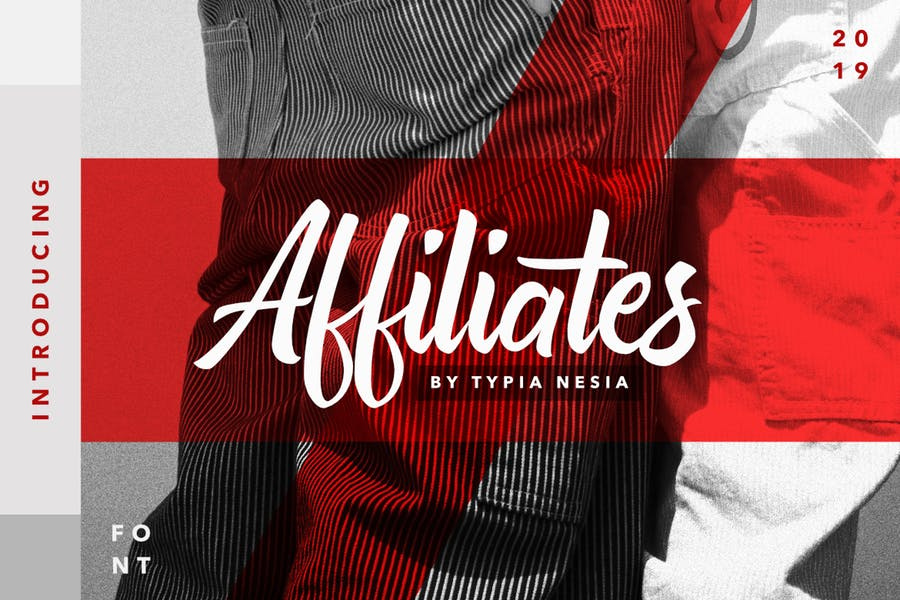
Affiliates Font
Affiliates Font is perfect for partnership marketing, business alliance branding, network marketing materials, affiliate program promotions, collaborative campaigns, professional networking, strategic partnership presentations, referral system graphics, business relationship communications, and authentic partnership-focused designs.
What makes Affiliates Font exciting is its collaborative spirit that embodies the power of strategic partnerships and mutual success through professionally crafted letterforms. This trustworthy typeface combines networking sophistication with accessible communication, creating a personality that communicates reliability, partnership, and genuine business collaboration. The font's affiliate character and networking appeal make it perfect for businesses focusing on partnerships, referral programs, and collaborative marketing strategies in today's interconnected business landscape.
The Affiliates Font family includes Regular, Bold, Light, Medium, Partnership, Professional, Condensed, and Network variants. Each weight maintains the font's collaborative character while providing comprehensive typographic flexibility for partnership brand identity systems and networking design applications across diverse business platforms.
Whether you're developing affiliate program identities, creating partnership marketing materials, designing networking presentations, or building collaborative business campaigns, Affiliates Font delivers unmatched partnership appeal and networking sophistication. Its professional presence makes it perfect for affiliate networks, business coalitions, referral programs, and collaborative enterprises seeking authentic partnership representation.
The font's balanced proportions and networking details ensure optimal performance across partnership documents while maintaining its distinctive collaborative character. Each letterform has been carefully designed to convey trustworthiness, mutual benefit, and professional networking that resonates with business audiences seeking reliable partnerships and collaborative opportunities.
This versatile typeface excels in business environments, offering designers the professionalism needed for comprehensive partnership brand communication strategies. The extensive character set includes networking alternates, partnership ligatures, and business symbols for affiliate market positioning and collaborative brand storytelling.
Embrace the power of collaborative design that celebrates business partnerships and authentic networking excellence.